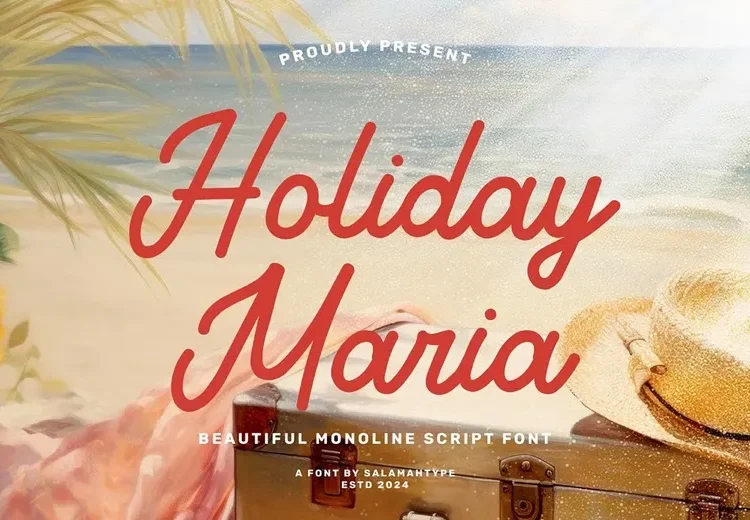
Holiday Maria Font
in Monoline
Introducing Holiday Maria, a sweet and childishly playful monolinear script font that adds a tender touch to your projects. With its sleek shape and welcoming design, Holiday Maria is perfect for branding applications such as logos, business cards, and packaging. This font strikes a beautiful balance between classy and comfortable, making it an excellent choice for beauty brands, lifestyle projects, and other related niches.
The font features standard characters along with multilingual support, ensuring that it can be used effectively in various languages. Holiday Maria is particularly well-suited for creating elegant wedding invitations, charming fashion boutique logos, or any graphic design work that calls for a blend of sophistication and cuteness.
Whether you’re working on a personal project or a professional brand, Holiday Maria brings a delightful flair that resonates with its audience. Its unique character will enhance the visual appeal of your designs, making them memorable and engaging.